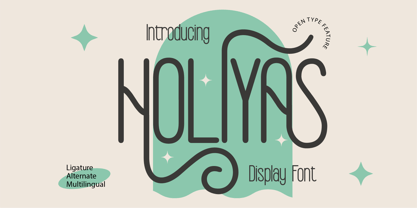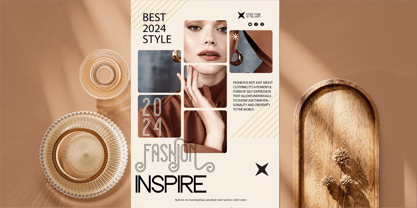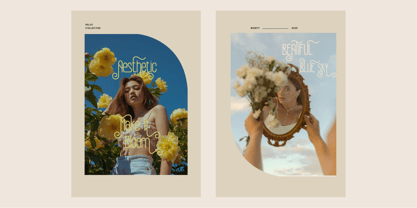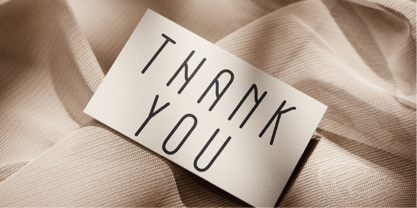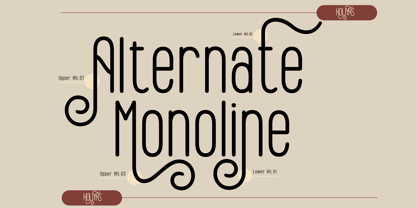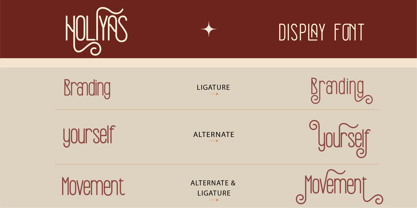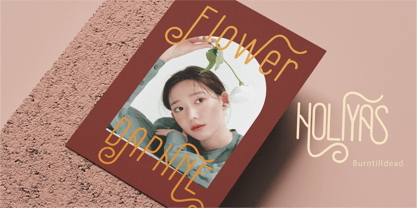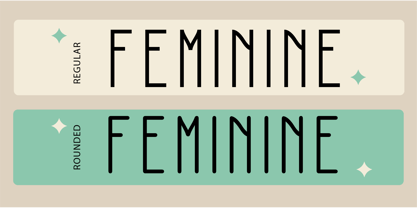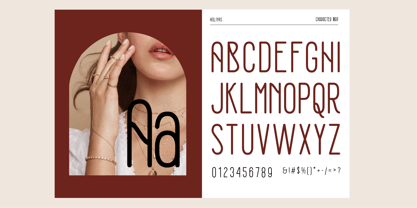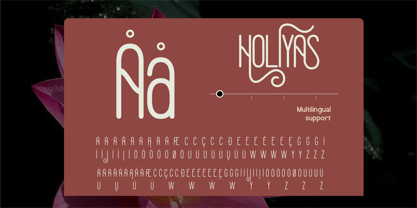
Holiyas
by Burntilldead
The Holiyas Font Family was designed by Eric Kurniawan and published by Burntilldead. Holiyas contains 2 styles and family package options.
Introducing, Holiyas, display font with unique and stylish characters. With a refreshing modern touch features beautiful ligatures, adding an artistic and unique touch to every word. Also this this font have elegant feel and 2 styles (regular & rounded style). Perfect for charming creative project and ideal for branding design, product packaging, invitation, logo design, posters that need touch of soft yet striking impression.
Features:
• A - Z set (Uppercase & Lowercase)
• Number
• Punctuation
• Alternates
• Ligatures
• Multilingual
• Holiyas Characters Map
Designers: Eric Kurniawan